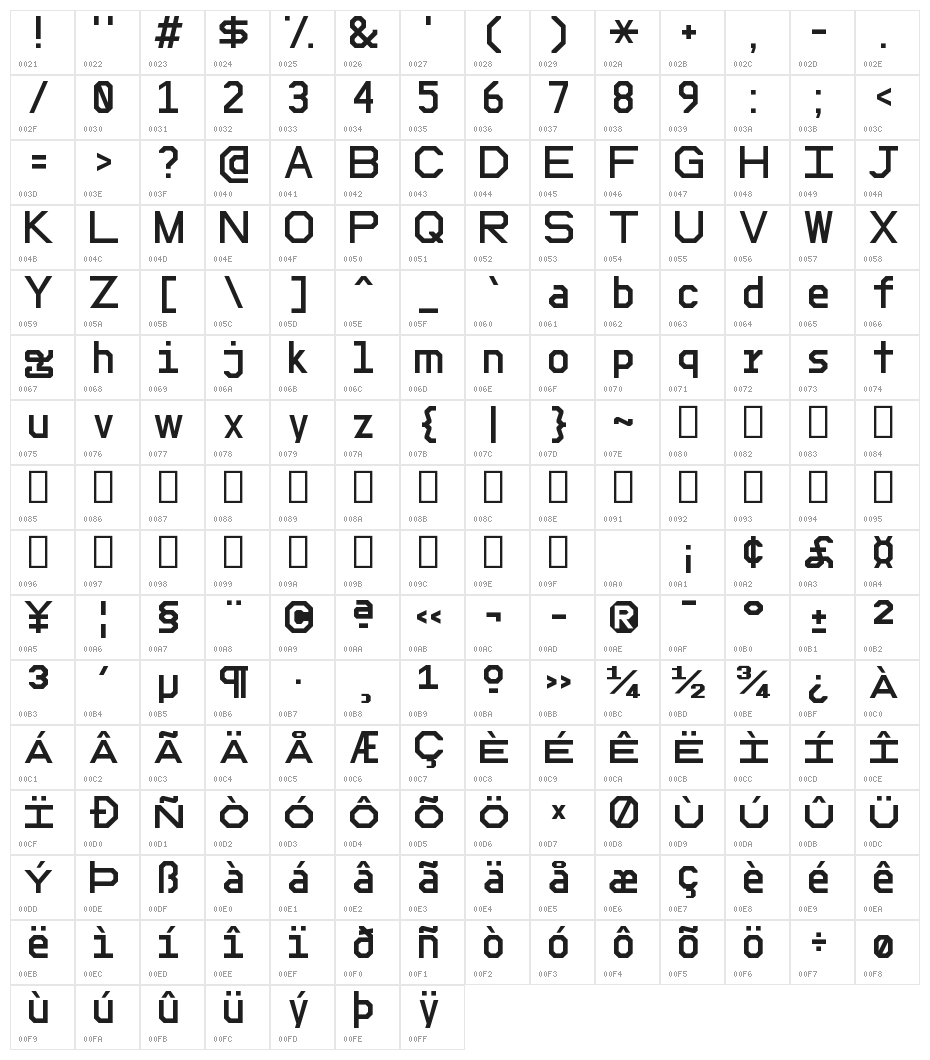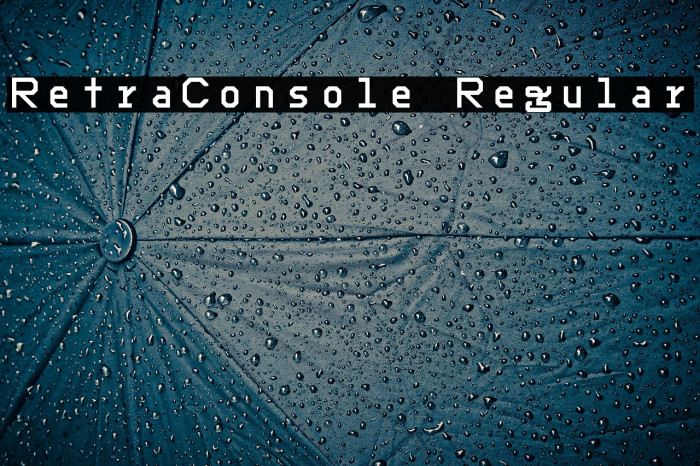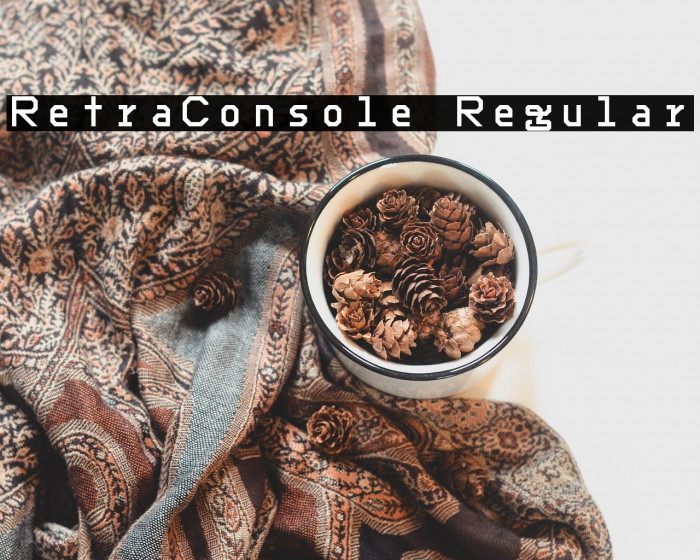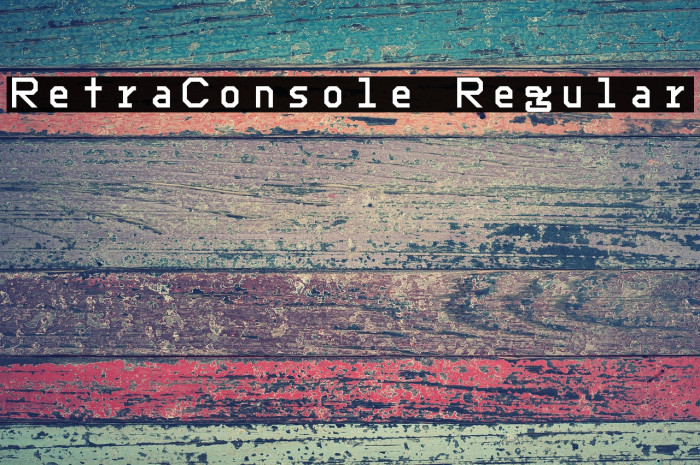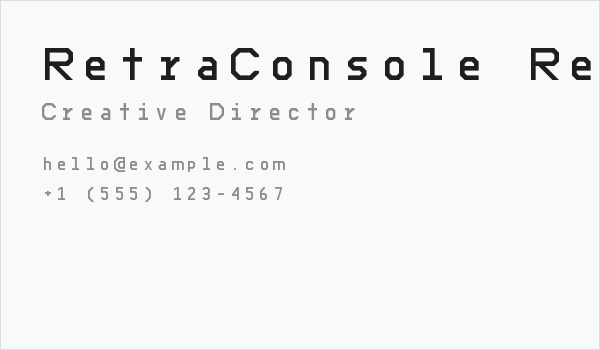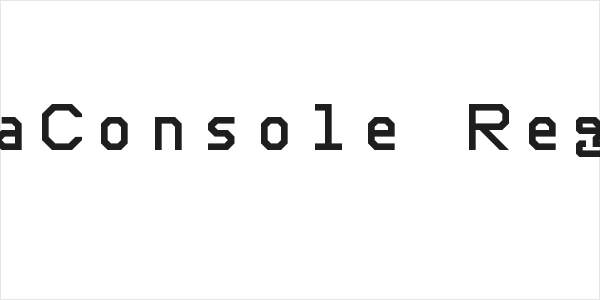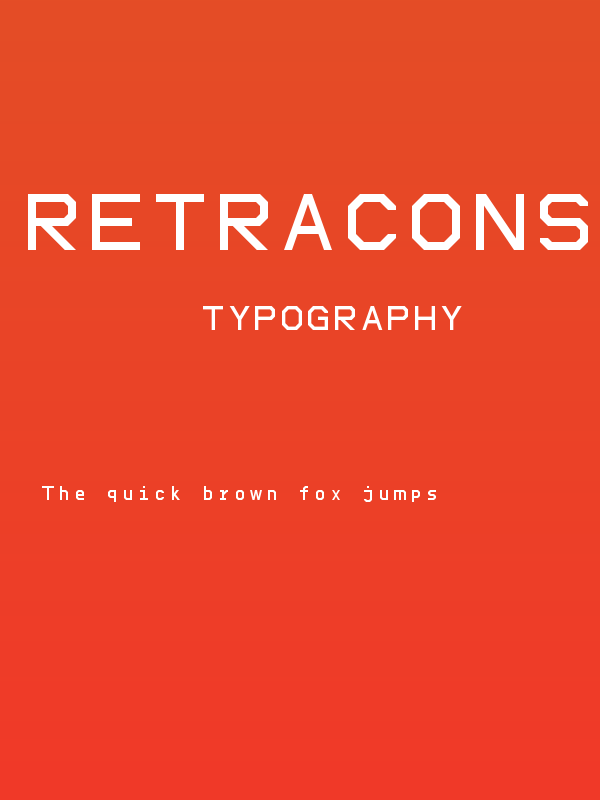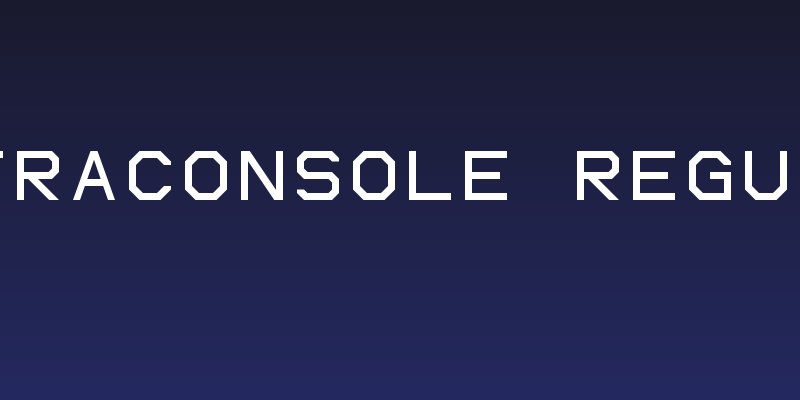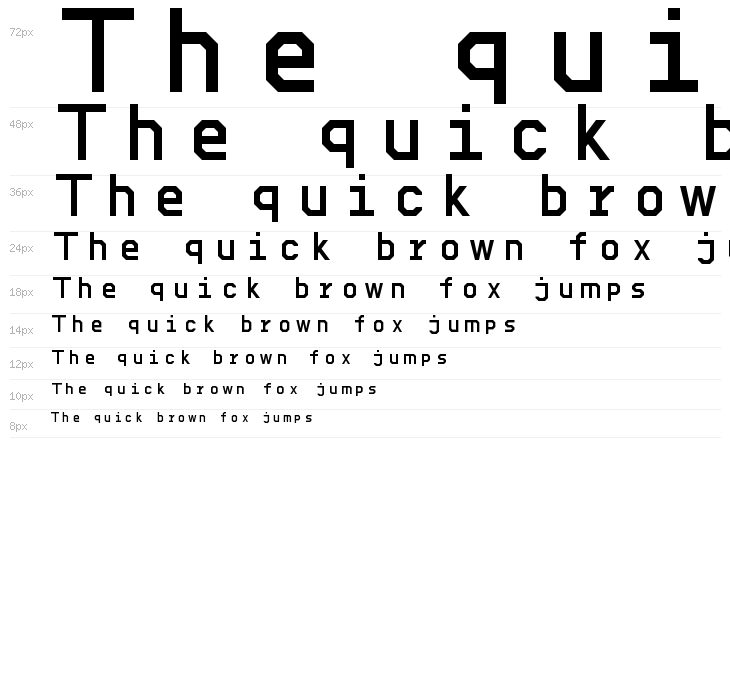
RetraConsole Regular Font
| Stile generale | Retro, Tech-inspired |
| Caso d'uso | Headlines, Digital displays, Coding interfaces |
| Progetti proposti | Ideal for tech-themed designs, retro video game graphics, coding interfaces, and digital art projects. |